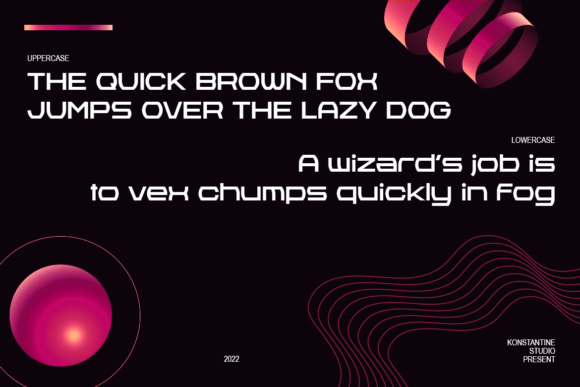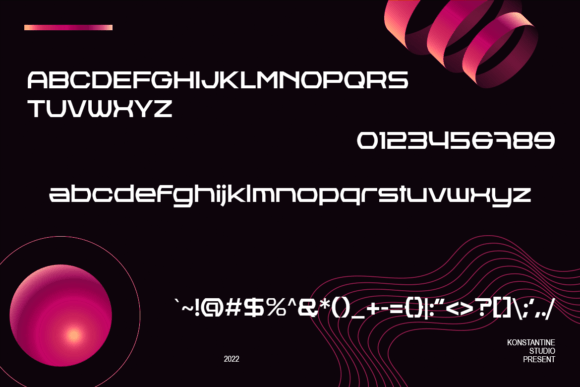
Introducing Detacher Font: The Ultimate Futuristic Typeface for Bold Statements
In the world of design, fonts play a crucial role in conveying messages and creating visual impact. For designers and crafters looking to add a futuristic touch to their work, Detacher Font is an excellent choice. This font is specifically designed to bring out the loudest statements, making it perfect for poster design, logo creation, tech-wear, fashion, branding, and more.
What Makes Detacher Font Stand Out?
Detacher Font boasts a wide and bold body, giving it a unique and futuristic vibe. Its sleek design ensures that your visual statements are loud and clear, grabbing the attention of your audience instantly. Whether you’re working on a poster, logo, or any other design project, Detacher Font is sure to make it stand out.
Key Features of Detacher Font
• Futuristic Vibes: Detacher Font is crafted to give your designs a futuristic feel, making them look modern and trendy.
• Wide and Bold Body: The font’s wide and bold structure ensures maximum visibility and impact.
• Versatility: From poster design to logo creation, tech-wear, fashion, and branding, Detacher Font can be used in a variety of design projects.
• Easy to Read: Despite its boldness, Detacher Font remains clear and easy to read, making it functional as well as visually appealing.
Designers and crafters are constantly on the lookout for fonts that can help them create unique and engaging designs. Detacher Font is tailored to meet this need, offering a typeface that is not only aesthetically pleasing but also highly versatile. Here are some ways designers and crafters can make the most out of Detacher Font:
Poster Design
For poster design, impact is key. Detacher Font, with its bold and futuristic look, is perfect for creating eye-catching posters that capture the essence of your message. Whether it’s for an event, a product launch, or an awareness campaign, Detacher Font ensures your poster stands out.
Logo Creation
A logo is the face of a brand, and it needs to be memorable. Detacher Font can help create logos that are not only unique but also convey a sense of innovation and forward-thinking, essential for brands looking to make a mark in their industry.
Tech-Wear and Fashion
In the tech-wear and fashion industries, trends evolve rapidly. Detacher Font, with its futuristic vibe, is perfectly suited for designing branding materials, packaging, or marketing collateral that speaks to a modern audience.
Tips for Using Detacher Font Effectively
To maximize the impact of Detacher Font, consider the following tips:
• Pair with Simplicity: While Detacher Font is bold, pairing it with simpler fonts can create a balanced look.
• Use in Large Sizes: The font’s boldness shines when used in larger sizes, making it perfect for headlines and titles.
• Experiment with Colors: Detacher Font looks great in vibrant colors. Don’t be afraid to experiment and find the color that best suits your design.
Detacher Font is a powerful tool for designers and crafters looking to add a futuristic touch to their work. Its wide and bold body, coupled with its versatility, makes it an excellent choice for a variety of design projects. By incorporating Detacher Font into your design arsenal, you’re equipped to create bold statements that capture attention and leave a lasting impression.